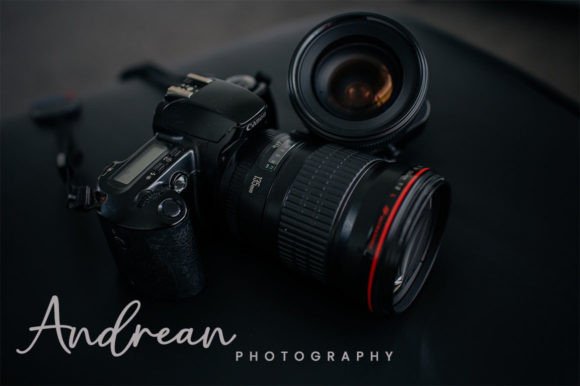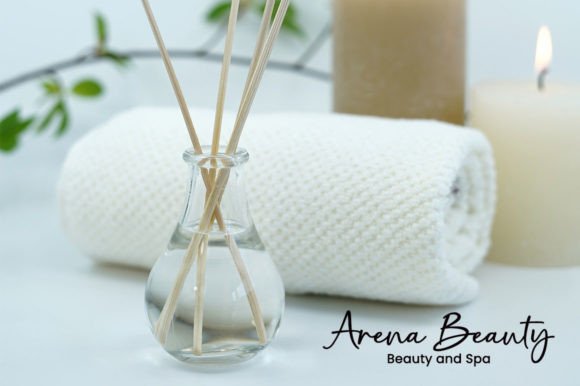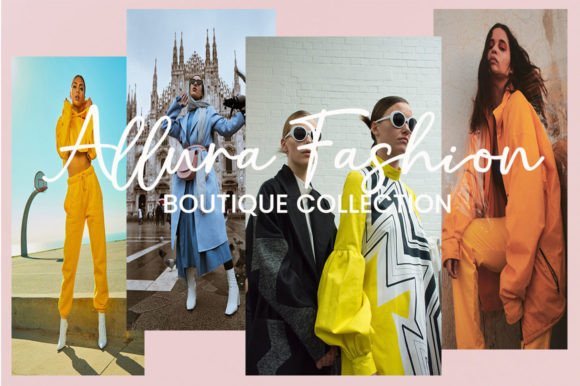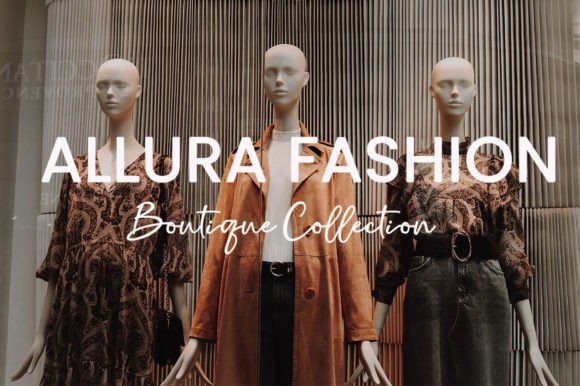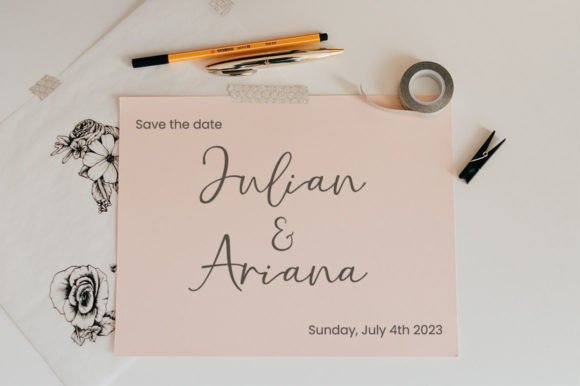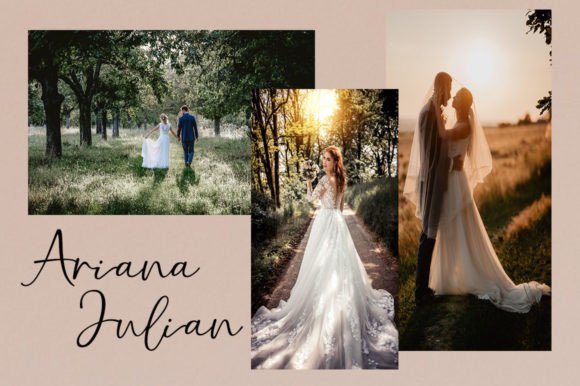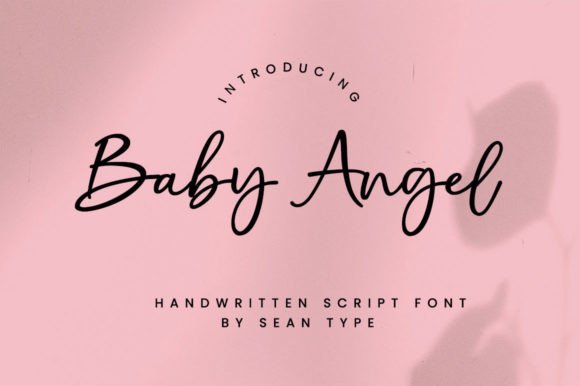
Baby Angel Font: Elevate Your Designs with Elegance and Sophistication
In the world of typography, few fonts manage to strike a balance between elegance and personal touch. Baby Angel Font is one such gem that has captured the hearts of designers and crafters alike. This beautiful handwritten font is a perfect blend of sophistication and charm, making it an ideal choice for high-end fashion branding, invitations, and other projects that demand a refined aesthetic.
The Birth of Baby Angel Font
Baby Angel Font is a meticulously crafted typeface that exudes the warmth and personality of a hand-drawn script. Each letter is carefully designed with precision and attention to detail, giving the font a unique and organic feel. The result is a font that is not only visually stunning but also highly versatile, suitable for a wide range of design applications.
Key Features of Baby Angel Font
- Elegant and Fashionable: Baby Angel Font boasts an elegant and fashionable design that is sure to elevate your designs and make them stand out.
- Handwritten with Precision: Each letter is crafted with precision and attention to detail, giving the font a personal and refined touch.
- Sophisticated and Personal: The font strikes a perfect balance between sophistication and personal touch, making it ideal for high-end fashion branding and invitations.
- Highly Versatile: Baby Angel Font is suitable for a wide range of design applications, including but not limited to fashion branding, invitations, and refined aesthetic projects.
What Makes Baby Angel Font Stand Out?
In a sea of fonts, Baby Angel Font stands out for its unique blend of elegance and personality. Here are a few reasons why designers and crafters are falling in love with this beautiful typeface:
- Unique Character: Baby Angel Font has a distinct character that sets it apart from other fonts. Its elegant and fashionable design makes it perfect for designers looking to add a touch of sophistication to their work.
- Attention to Detail: The font’s creator has paid meticulous attention to detail, ensuring that each letter is crafted with precision and care.
- Emotional Connection: Baby Angel Font evokes an emotional response, making it perfect for projects that require a personal touch.
Using Baby Angel Font in Your Designs
Baby Angel Font is incredibly versatile and can be used in a variety of design applications. Here are a few ideas to get you started:
- Fashion Branding: Use Baby Angel Font to create stunning fashion branding materials, such as logos, business cards, and packaging.
- Invitations: Add a touch of elegance to your invitations, whether it’s for a wedding, baby shower, or formal event.
- Stationery: Create beautiful stationery, including letterheads, notebooks, and journals, using Baby Angel Font.
Tips for Working with Baby Angel Font
To get the most out of Baby Angel Font, here are a few tips to keep in mind:
- Pair with Neutral Backgrounds: Baby Angel Font looks stunning on neutral backgrounds, allowing the font to take center stage.
- Experiment with Colors: Try pairing Baby Angel Font with different colors to create a unique and eye-catching design.
- Use for Headlines and Titles: Baby Angel Font is perfect for headlines and titles, adding a touch of elegance and sophistication to your designs.
Baby Angel Font is a beautiful and elegant handwritten font that is sure to elevate your designs and make them stand out. With its unique blend of sophistication and personal touch, this font is perfect for high-end fashion branding, invitations, and other projects that demand a refined aesthetic. Whether you’re a designer or crafter, Baby Angel Font is a must-have in your typography arsenal.